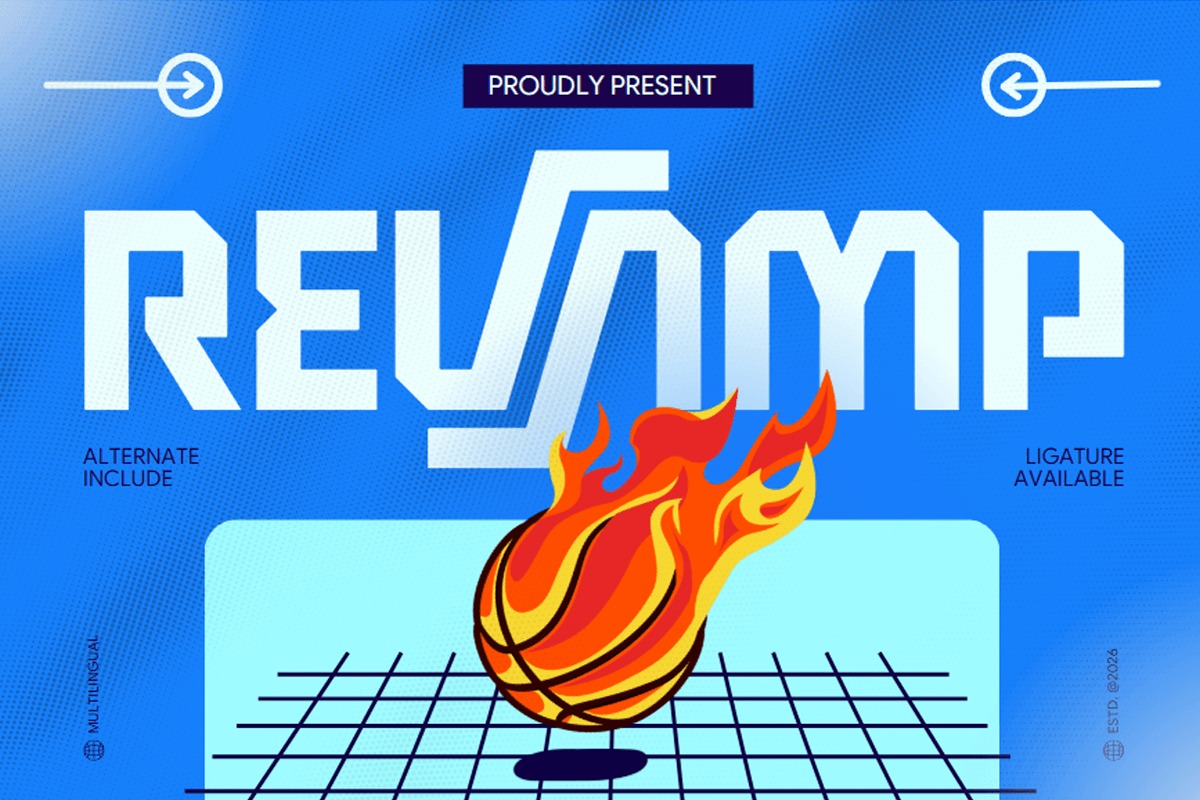
Revamp – Logo Sport Font
REVAMP – Logo Sport Font is a premium-quality font developed to enhance your work with a polished, modern, and visually elevated look. REVAMP – Branding Logo Sport Font REVAMP is a modern branding logo sport font designed to deliver energy, strength, and competitive visual impact. Featuring bold letterforms, dynamic sporty shapes, and a strong contemporary style, REVAMP is perfect for sports logos, team branding, esports visuals, athletic merchandise, and action-driven design projects.
Combining modern sports aesthetics with a clean branding approach, REVAMP creates a powerful and professional identity. Its structured design ensures excellent readability while maintaining a fast, energetic, and memorable appearance, making it ideal for fitness brands, tournaments, gaming teams, and modern athletic campaigns.
REVAMP – Branding Logo Sport Font Features:
Bold sporty style with modern branding aesthetics
Dynamic letterforms with energetic visual character
Ideal for sports logos, esports, and merchandise
Uppercase, lowercase, numerals, and punctuation included
Strong structure with impactful sporty appearance
Perfect for teams, fitness brands, and competitive visuals
Boost your athletic branding with REVAMP – the sport logo font built for bold and energetic design.